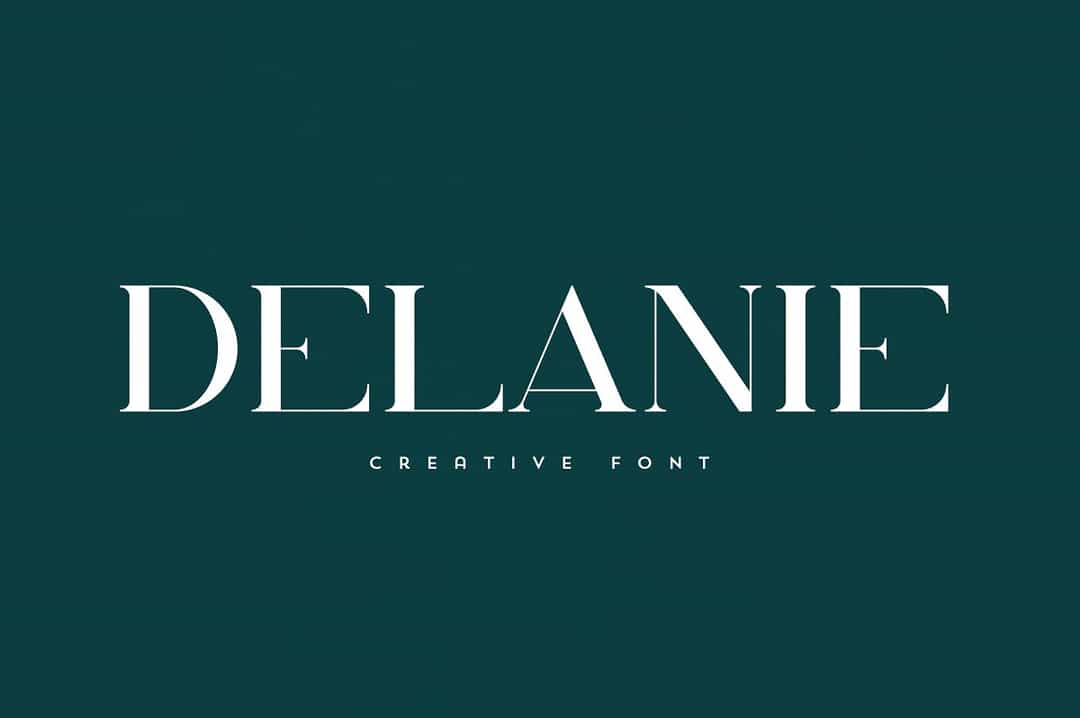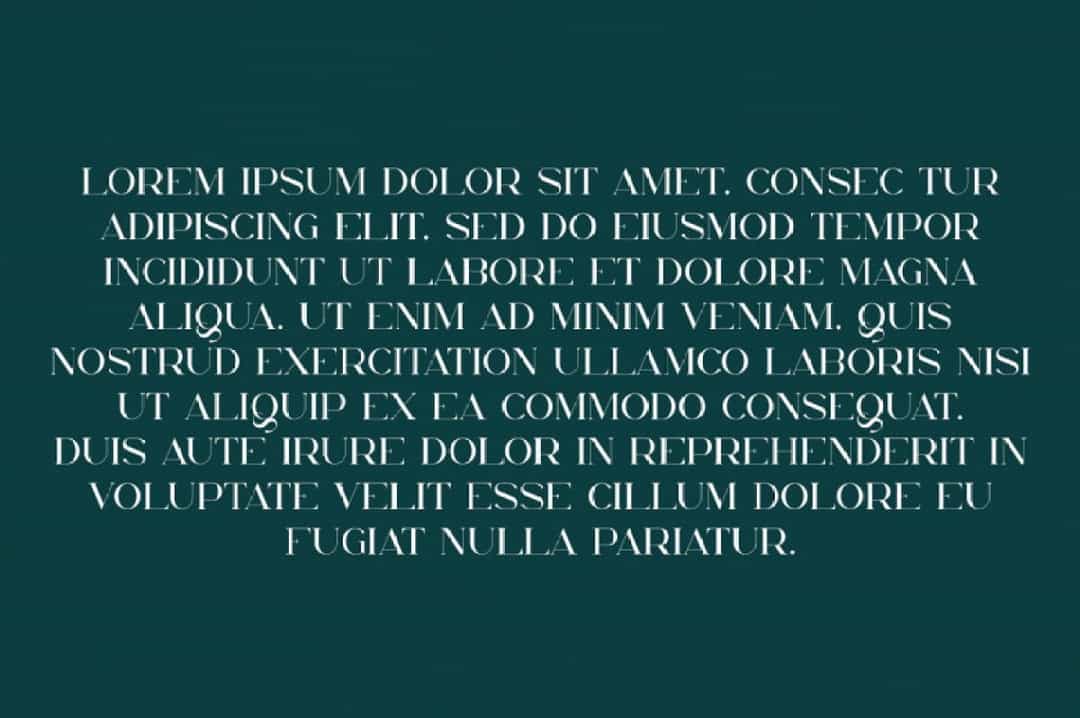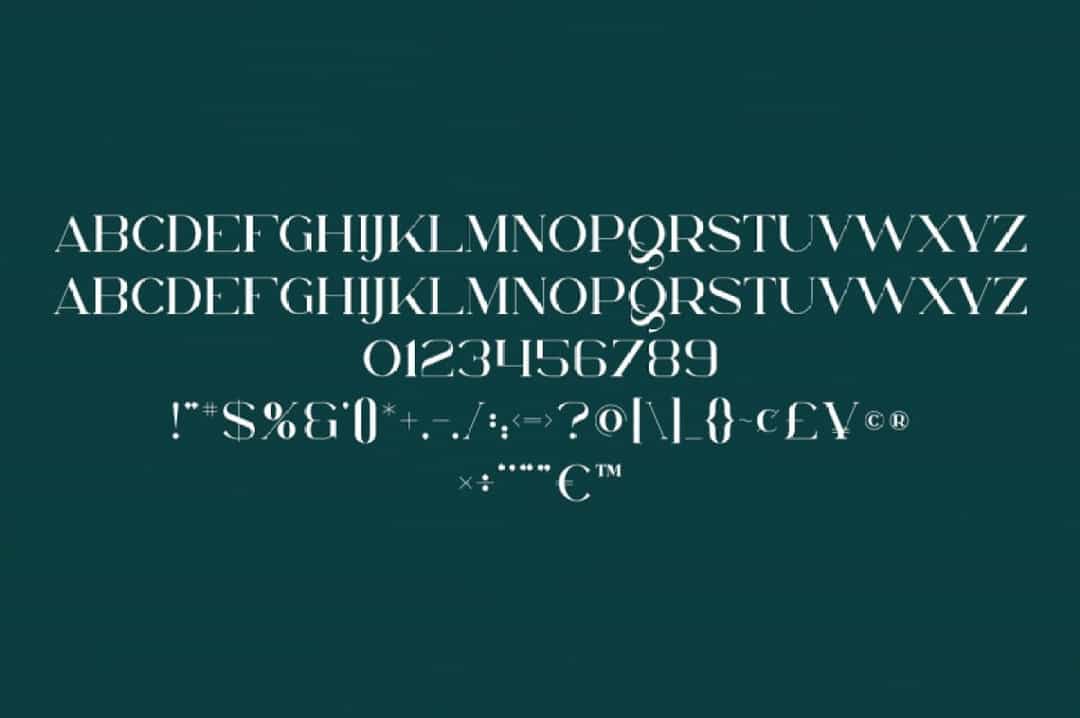
Delanie is a sophisticated yet flexible serif typeface that will add flair and individuality to your typography! Use this font for headlines, logos, branding designs or simple text – it will leave a lasting impression! Perfect for home-ware projects, branding designs for products packaging or magazine headers as well as adding elegant text overlay on background images!